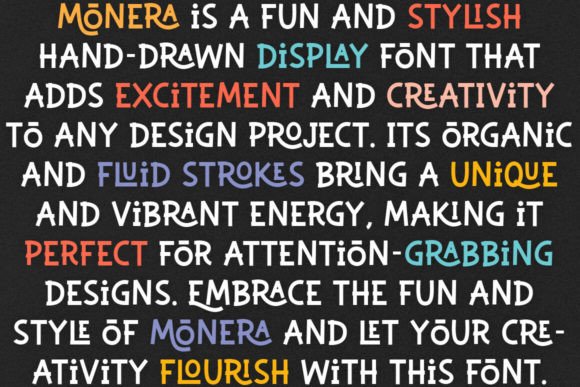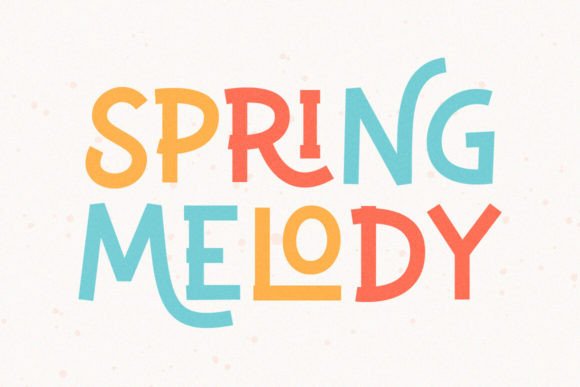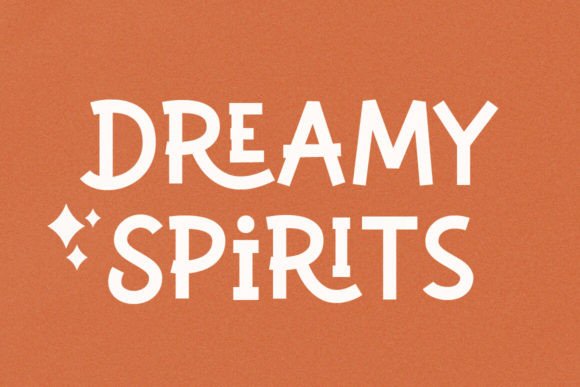
Introduction to Konera Font
Konera is a fun and stylish hand-drawn display font that adds a playful touch to any design.
👤 Author Typebae
With its charming style, it brings a touch of uniqueness and character to your projects Let your creativity shine with this captivating font that effortlessly combines fun and style.
Key Features of Konera Font
Why Choose Konera Font?
Konera Font offers exceptional quality and versatility, making it a valuable addition to your design toolkit. Whether you’re creating for personal projects or commercial use, Konera Font delivers professional results.